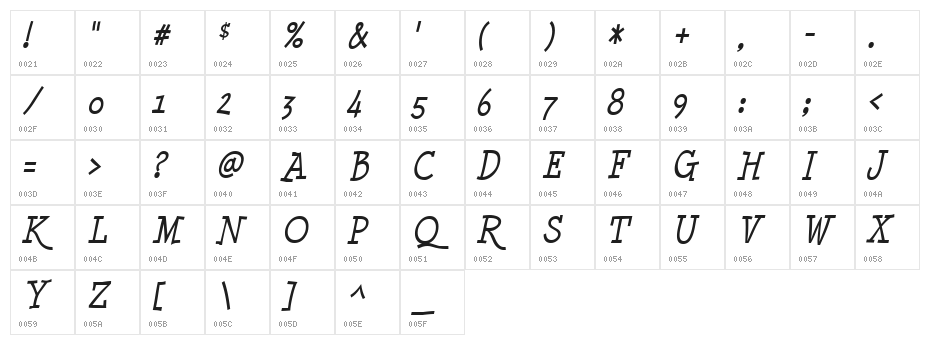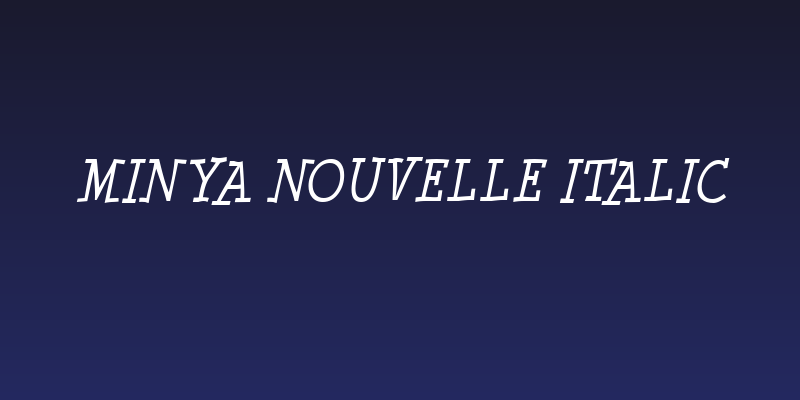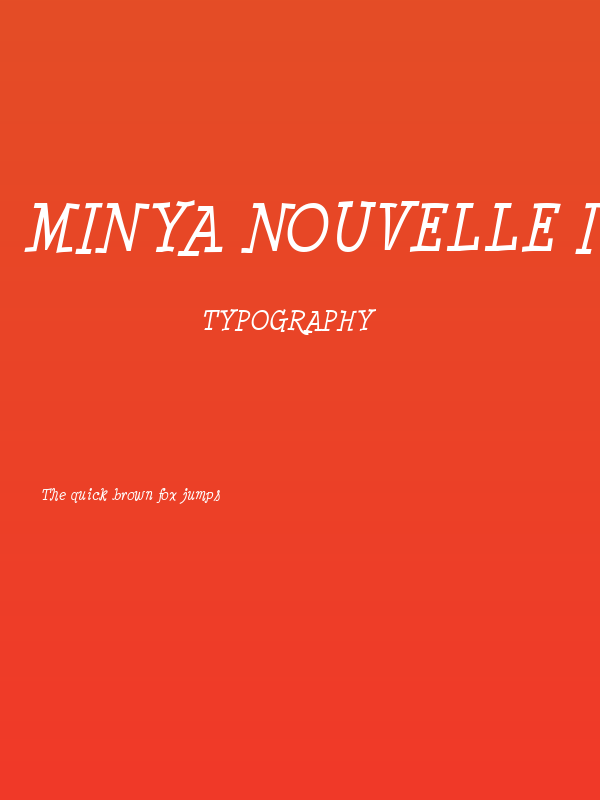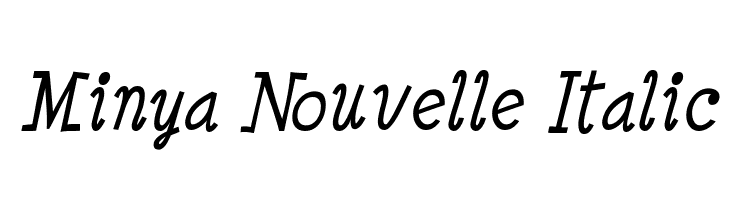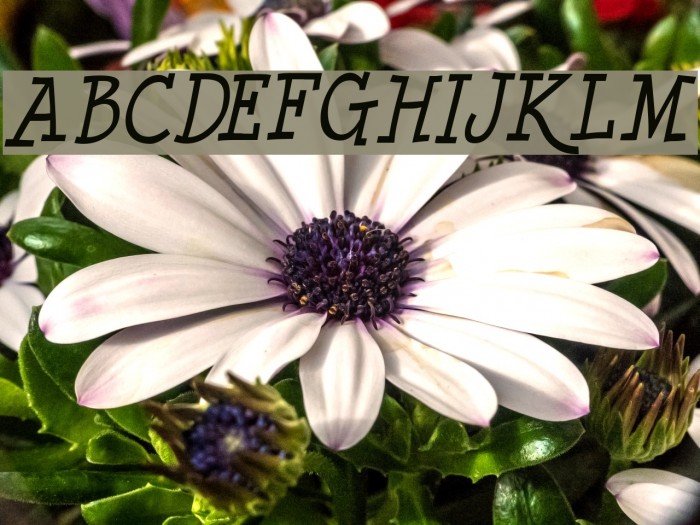
Minya Nouvelle Italic Font
Minya Nouvelle Italic Description
This font features a dynamic and elegant italic style, characterized by its flowing and slightly slanted letterforms. The uppercase letters exhibit a classic serif design with a touch of modern flair, while the lowercase letters maintain a consistent and harmonious appearance. The numerals are distinct and easy to read, complementing the overall aesthetic. Special characters are well-integrated, adding versatility to the font. The strokes are moderately thick, providing a balanced contrast that enhances readability while maintaining a stylish look.
| Overall Style | Classic |
| Use Case | Headlines, Body text, Logos |
| Proposed Projects | Ideal for use in elegant invitations, branding projects, editorial design, and sophisticated advertising materials. |